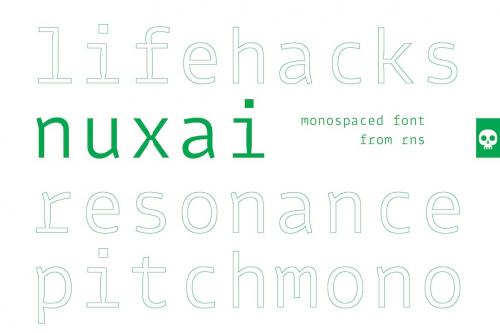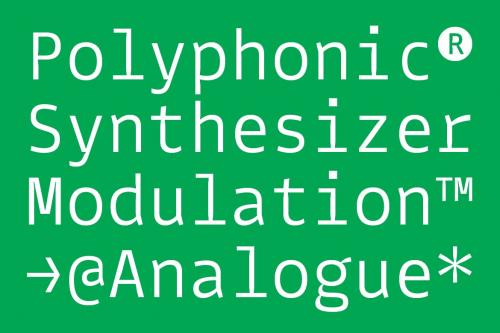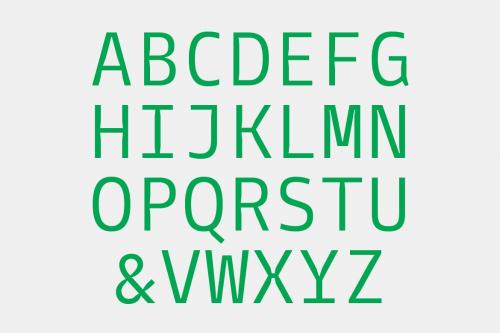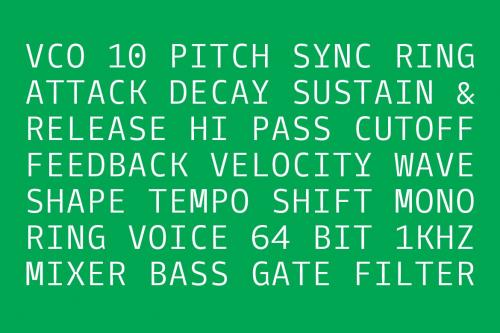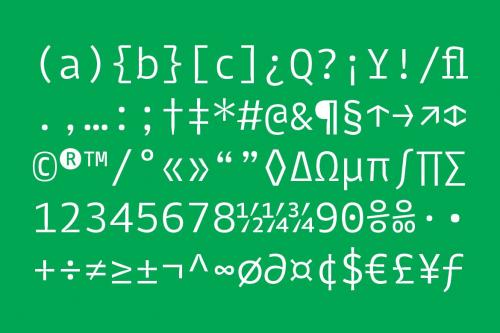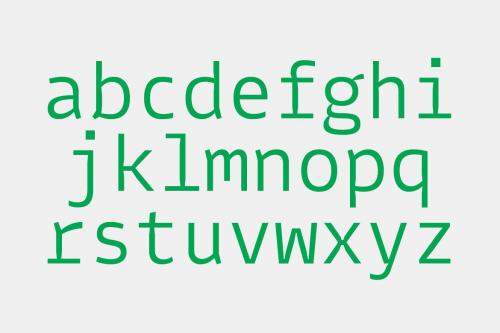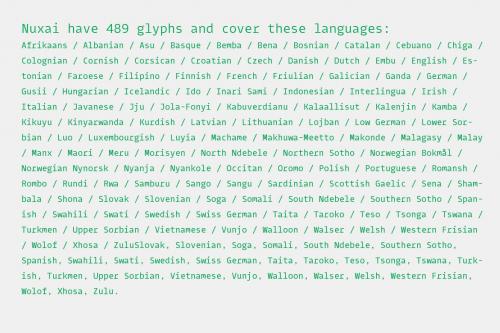
runes nuxai font
RNS Nuxai Font
**Nuxai** is a monospaced font from RNS. Specially crafted to be used in programming. Being thought for this read context it presents many details that can make it look futuristic and beautiful at the same time in other editorial situations.